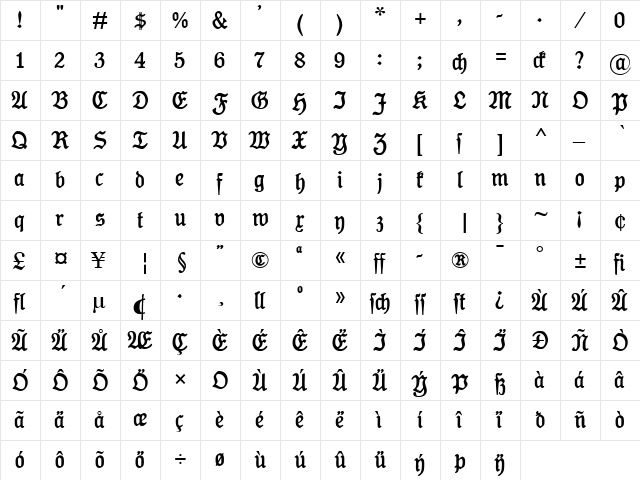
Koenig-Type Regular Font Preview
Koenig-Type Regular
Koenig-Type Regular Font Details
| Designer | Dieter Steffmann |
Design Context for Koenig-Type Typeface
Koenig-Type is a composed and adaptable typeface that performs quietly and consistently across a wide range of design contexts.